I kept seeing the same kind of fonts across Pinterest β soft celestial lines, mystical symbols, and elegant serif styles. After digging deeper, I found the exact ones behind that look.
1. Celestial Moon Font
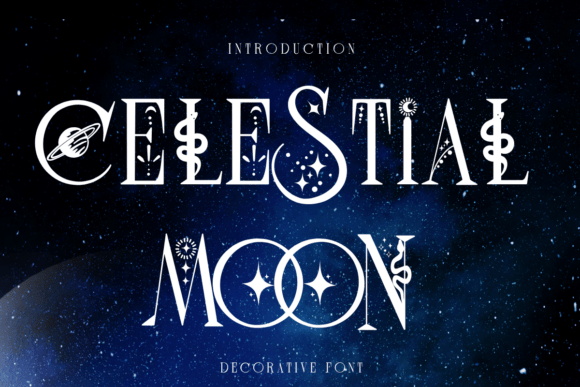
2. Mystic Font
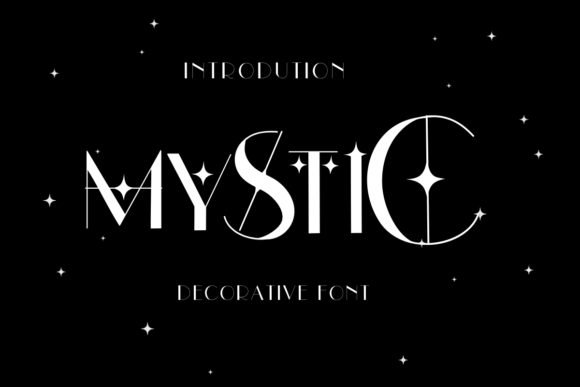
3. Moonlight Font
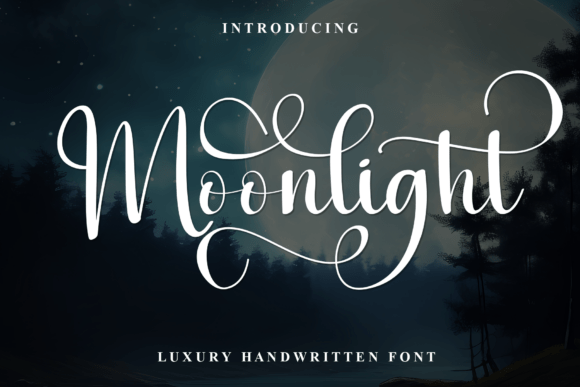
4. Luna Font
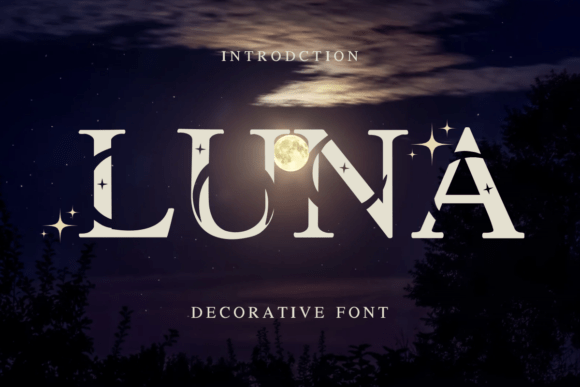
5. Aimla Font
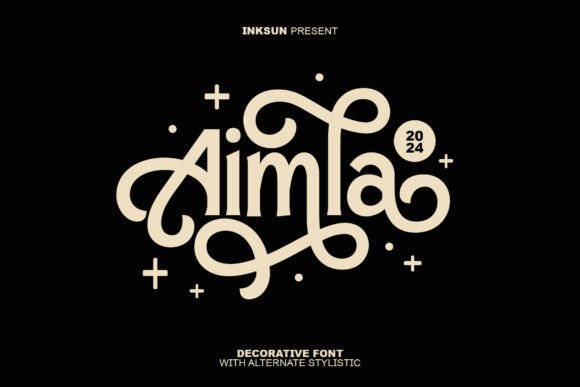
6. Divine Love Font
7. Minerva Font
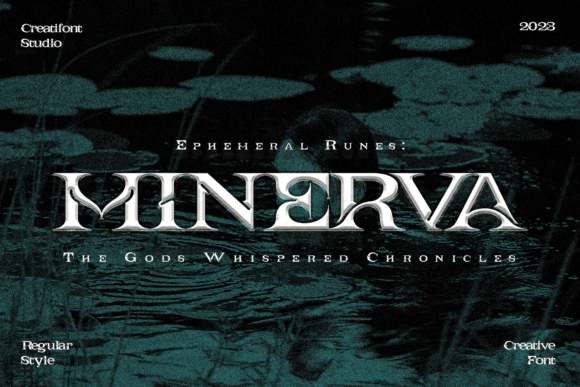
8. Moonscythe Font
9. Soul Cards Font
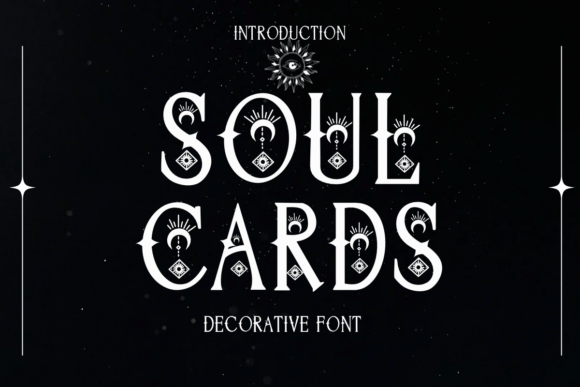
10. Arcane Whispers Font
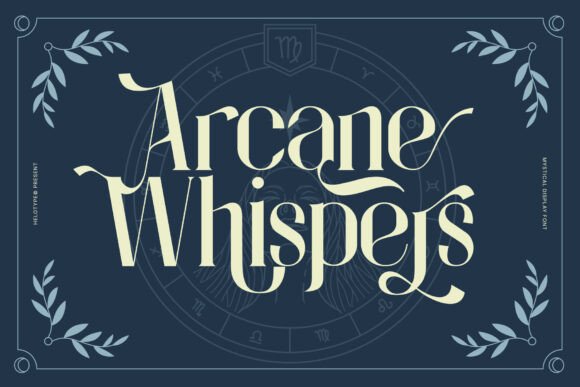
11. Star Oracle Font
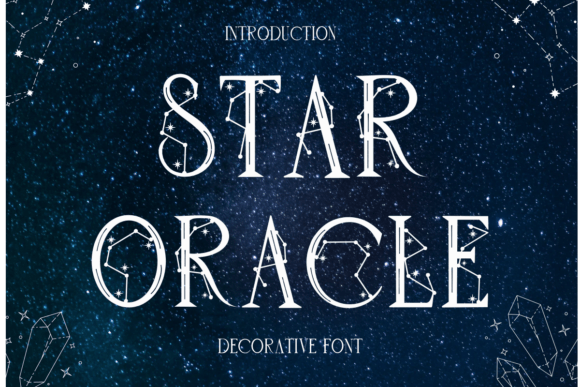
12. Lunar Mystique Font
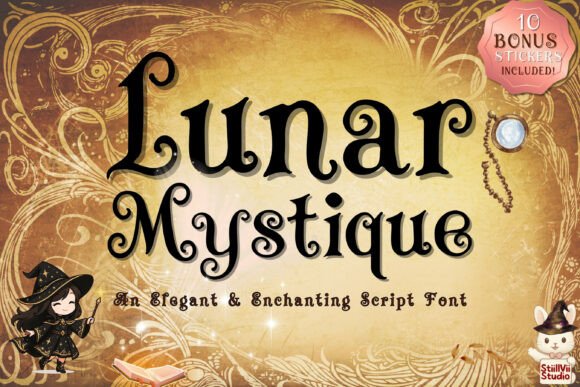
13. Guiding Light Font
14. Cosmic Vintage Font
15. Asterixa Font
16. Celestial Pair Font
17. The Starfall Font
18. Magic Stars Font
19. Astrology Font
20. Moon Tarot Font
21. Zodiac Font
22. Lunor Moon Font
23. Astro Font
24. Mystic Night Font
25. Moon and Star Font